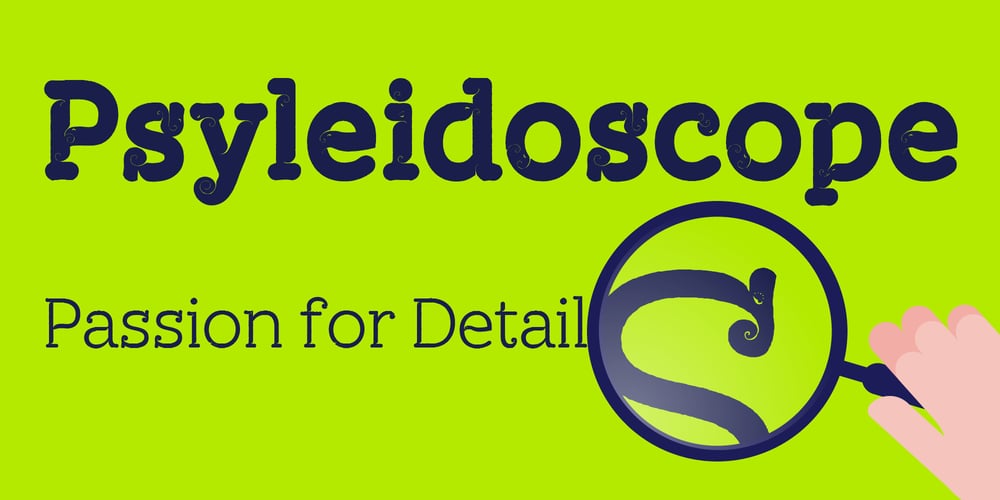
Psyleidoscope
Psyleidoscope font
Psyleidoscope Font Family was designed by Markus Strümpel and published by Designpiraten. Psyleidoscope contains 2 styles and family package options. Imagine a font that reveals more and more details the closer you get. Clearly readable in small sizes and illustrative when blown up to large scales. A psychedelic trip, a kaleidoscope of discoveries – that is Psyleidoscope. Use it in extreme sizes – large and small – to get all the fun out of it. There are two styles, Regular and Bold, with glyphs that support 207 different languages.